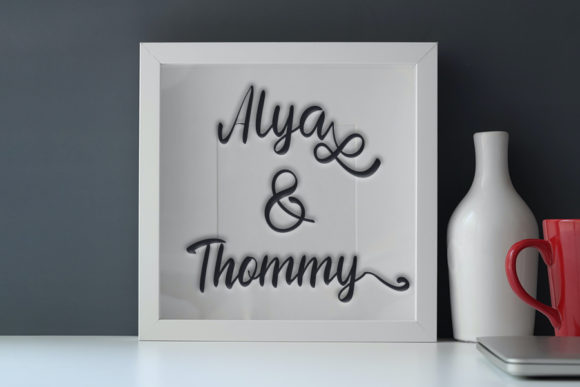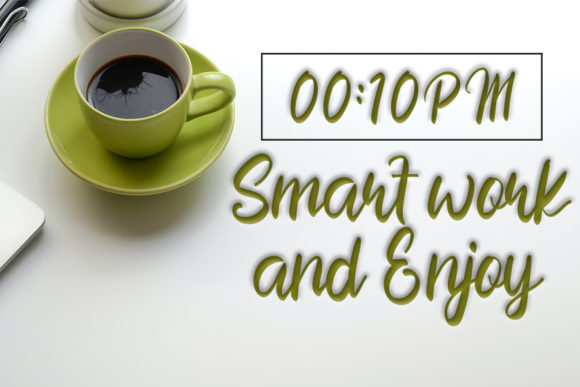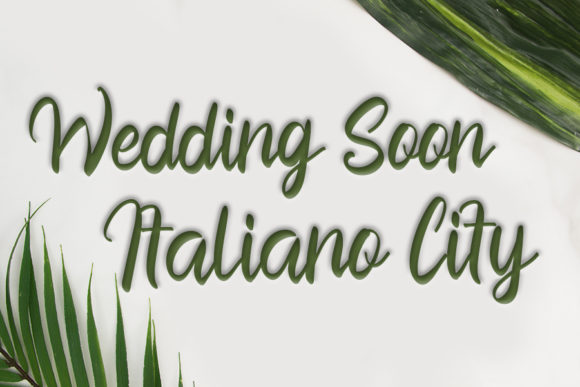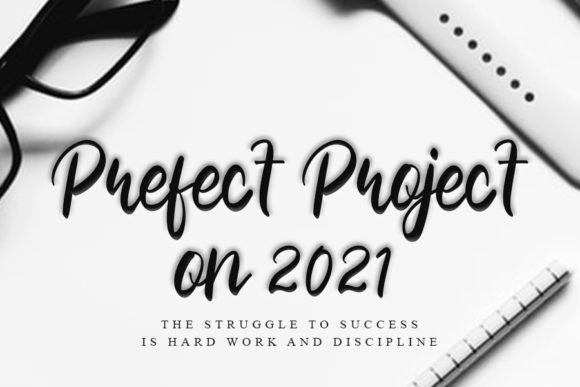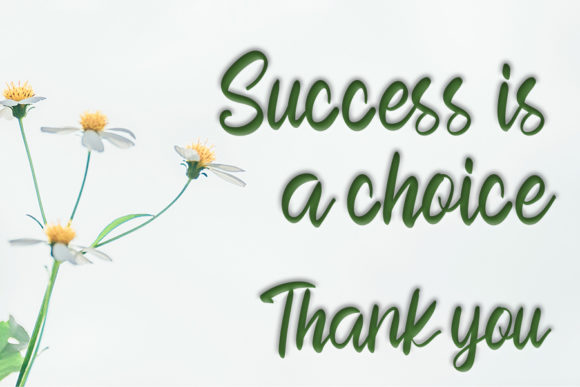
The Magic of Bethadina Font: Elevate Your Designs with Elegance
I’ll never forget the time I was working on a branding project for a luxury wedding planner. I had the perfect color palette, the ideal imagery, but I was stuck on finding the right font. The client wanted something elegant, modern, and stylish, but not too over-the-top. That’s when I discovered Bethadina Font, and it completely transformed my design.
Bethadina is a modern and stylish script font that has beautiful and well-balanced characters, making it match a wide pool of designs. Add it to your most creative ideas and notice how it makes them come alive! In this article, I’ll share my experience with Bethadina, its features, and how to make the most of it in your designs.
An Honest Review of Bethadina Font
• Elegant and Modern Design: Bethadina’s script font is both elegant and modern, making it perfect for luxury brands, wedding designs, and high-end marketing materials.
• Well-Balanced Characters: The font has well-balanced characters that ensure readability and aesthetics, even at smaller sizes.
• 💡 Versatility: Bethadina matches a wide range of designs, from minimalist to elaborate, making it a versatile addition to your font library.
While Bethadina is an excellent font, there are a few things to keep in mind:
• 🤔 Limited Use in Body Text: Due to its script nature, Bethadina might not be the best choice for long body text. It’s better suited for headings, titles, and short paragraphs.
• ⚠️ Glyph Limitations: While Bethadina has a range of glyphs and stylistic alternates, it might not have every special character you need. Make sure to check the font’s capabilities before committing to a design.
Bethadina was designed with the intention of creating a modern, elegant script font that could be used for a wide range of creative projects. The designer aimed to craft a font that was both stylish and readable, making it perfect for luxury brands, wedding designs, and high-end marketing materials.
A: Bethadina is ideal for luxury brands, wedding designs, high-end marketing materials, and any project that requires an elegant and modern script font.
A: While Bethadina is a beautiful font, it’s better suited for headings, titles, and short paragraphs. For long body text, consider a more traditional serif or sans-serif font.
A: Yes, Bethadina supports OpenType features like ligatures, glyphs, and stylistic alternates, allowing you to add personality and variety to your text.